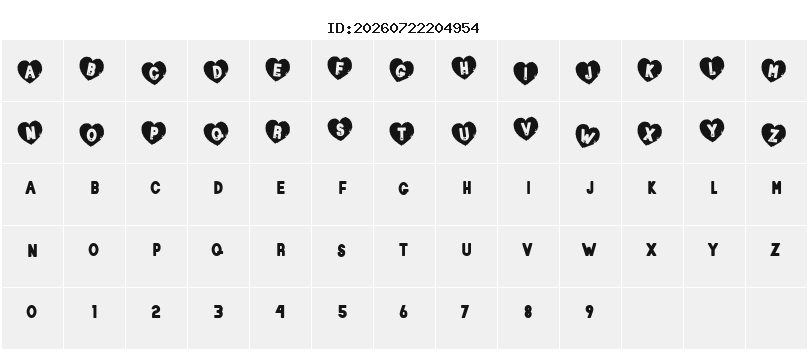
Murder101.ttf is a modern, elegant sans-serif font designed for ultimate readability and visual harmony. Perfect for branding, headlines, web design, and print materials.